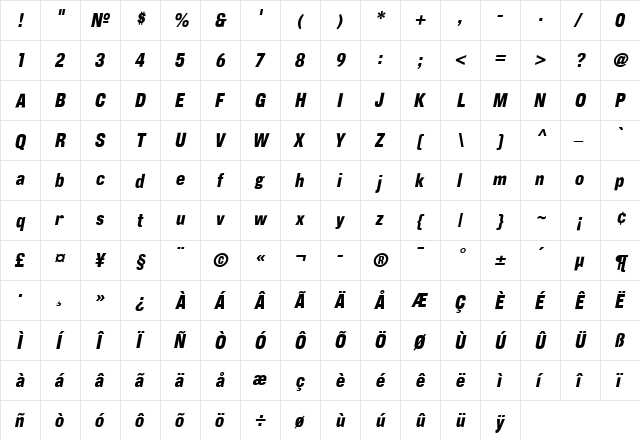
CorpusGothic Italic Font Preview
CorpusGothic Italic
CorpusGothic Italic Font Details
Design Context for CorpusGothic Typeface
CorpusGothic has the quiet confidence of well-executed sans-serif typography: versatile, unobtrusive, and dependable at any size. The dynamic lean of this cut emphasises speed and emphasis in any layout.
Font Pairing: Works well alongside a characterful serif or display font that can carry the expressive load while CorpusGothic handles the functional copy.
Pro Tip: Use CorpusGothic for UI labels, navigation, and short-form body copy where clean legibility is the priority.